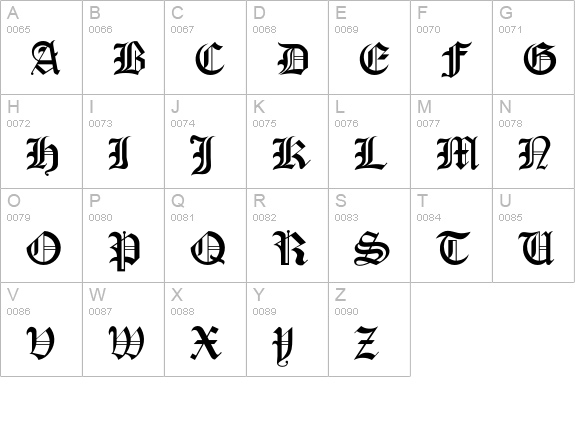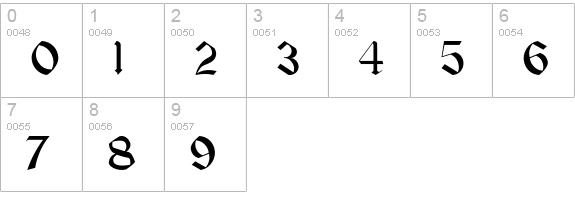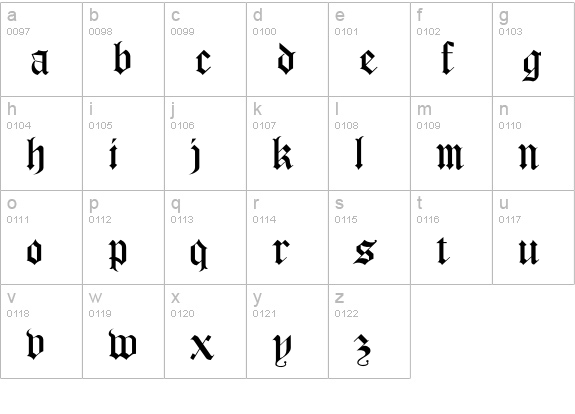
CastleFont Font Details
CastleFont is a stunning and elegant font that exudes a sense of grandeur and sophistication. With its intricate details and intricate design elements, CastleFont is perfect for adding a touch of regal charm to any project. This versatile font is suitable for a wide range of uses, from invitations and stationery to branding and packaging. What makes CastleFont even more appealing is that it is completely free to download. Yes, you read that right - this exquisite font can be yours at no cost! Simply head over to FontsMarket.com and get your hands on this beautiful typeface today. Don't miss out on the opportunity to elevate your designs with the timeless beauty of CastleFont.